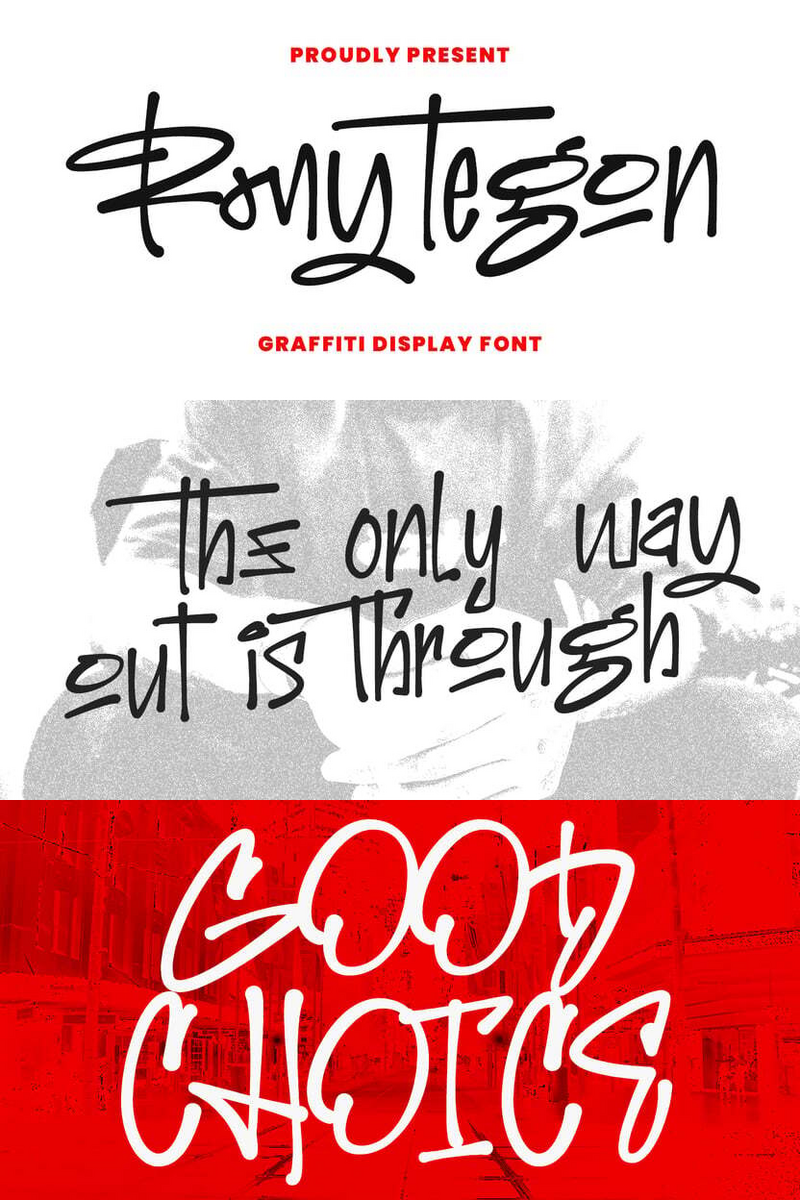
Unearthing Tomorrow's Aesthetic Today: MC Rony Tegon's Experimental Typeface, a Nostalgic Blueprint for Start-up Tech's Unforgettable Brand Story, from Disruptive Pitch Decks to Engaging Editorial Features.
Remember the thrill of discovery? That unique spark when innovation felt tangible, hand-crafted, and imbued with an almost rebellious spirit? MC Rony Tegon isn't just a font; it's a typographic time capsule, a unique blend of hand-crafted artistry and audacious experimentation, perfectly poised to define the next generation of start-up tech.
Imagine the warmth of a letterpress print meeting the sharp, inventive lines of a future yet unwritten. MC Rony Tegon hums with an almost analogue charm, yet its forms are surprisingly fresh, hinting at a creative spirit unafraid to bend convention. This isn't your average sans-serif; it's a conversation starter, a visual embrace that evokes a sense of genuine ingenuity and a respect for the past, while boldly pushing into new visual territories. Its artistic and experimental style sets it apart, offering a character that feels both familiar and refreshingly new.
You're a start-up tech company, building something groundbreaking. You're not just selling code; you're selling a vision, a future. But in a crowded digital landscape, how do you make your mark? How do you tell your story with a voice that truly resonates, that feels both established and daringly new? MC Rony Tegon offers that distinctive voice. It's for the innovator who respects history but isn't bound by it. It’s for the brand that wants to communicate cutting-edge ideas with a human touch, a warmth that invites curiosity rather than simply demands attention. It's the typographic equivalent of finding a rare, hand-built prototype from a visionary past, reimagined for the digital age, perfect for forging a memorable brand identity with its truly artistic and experimental style.
With MC Rony Tegon, your brand identity will transcend the ordinary. It helps forge an immediate, emotional connection, evoking a sense of discovery and genuine ingenuity. Your pitch decks will feel less like presentations and more like captivating manifestos. Your blog headers won't just inform; they'll intrigue. This font is the secret ingredient for visual storytelling that sticks, differentiating you from the herd and etching your brand into the memory of your audience with its unmistakable character.
Picture MC Rony Tegon gracing the headline of your latest product launch announcement, lending an air of sophisticated rebellion. Imagine it as the distinctive logotype for a new app, or illuminating the chapter titles in your company's white paper, giving complex ideas an approachable, artisanal feel. It shines in social media campaigns that aim for genuine engagement, and it's perfect for those unique merchandise items that truly reflect your brand's pioneering spirit. Even in the finer details, like pull quotes in an editorial piece about your company's journey, MC Rony Tegon whispers tales of innovation with a knowing, nostalgic wink.
MC Rony Tegon: The Art of Future Past.